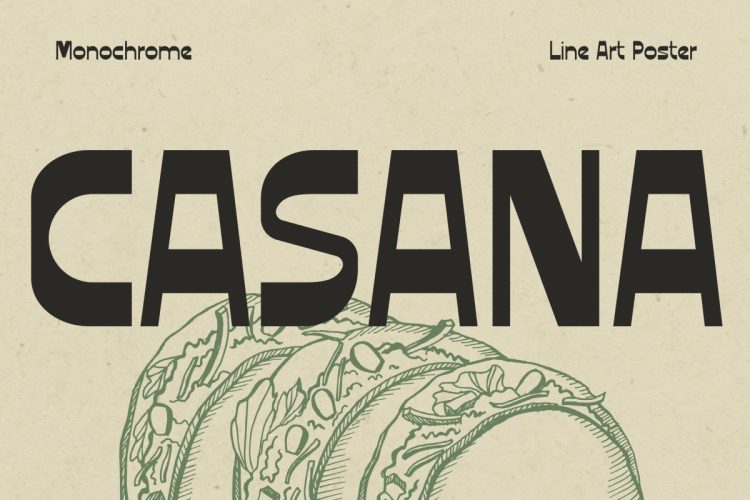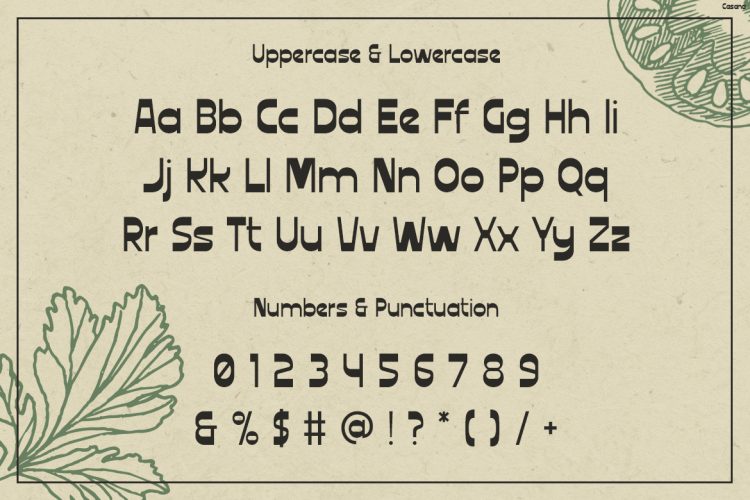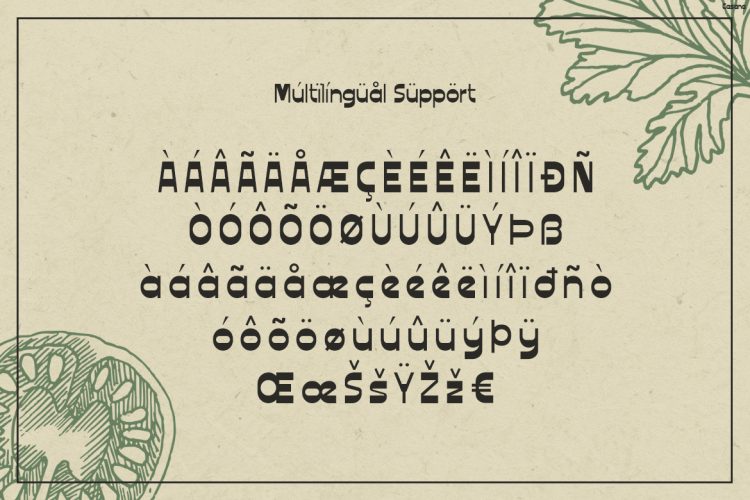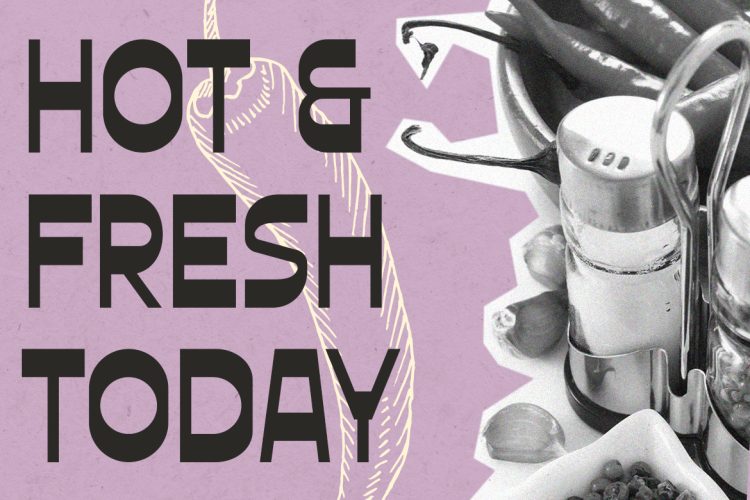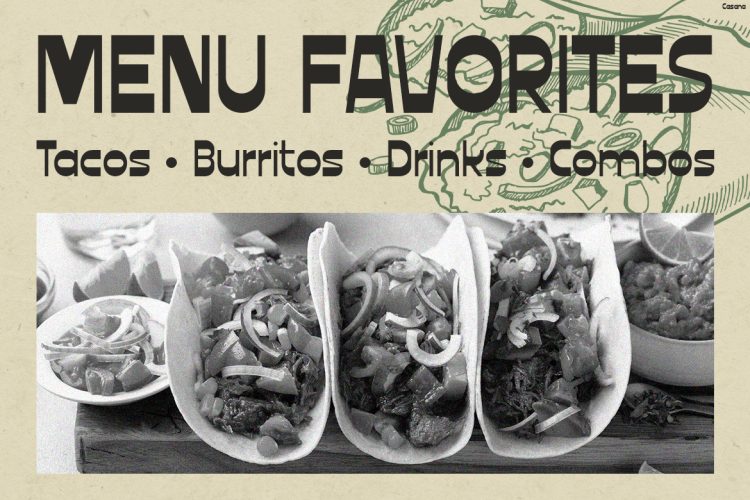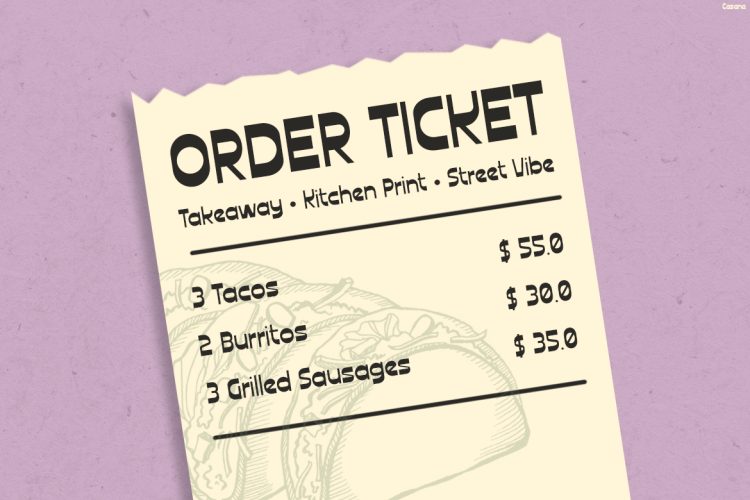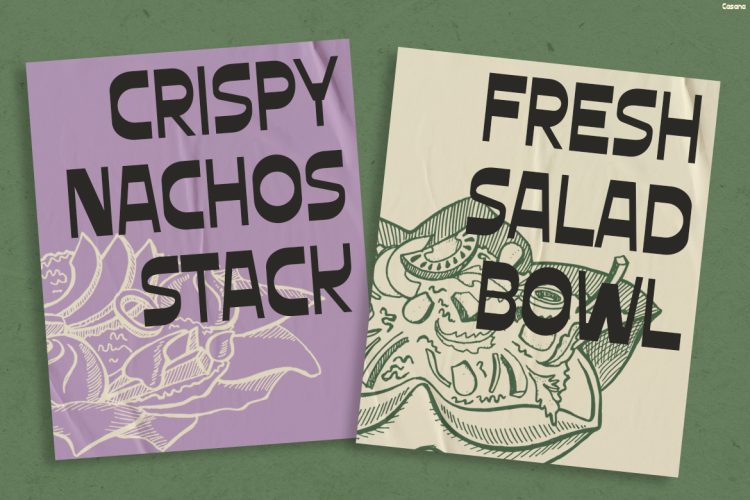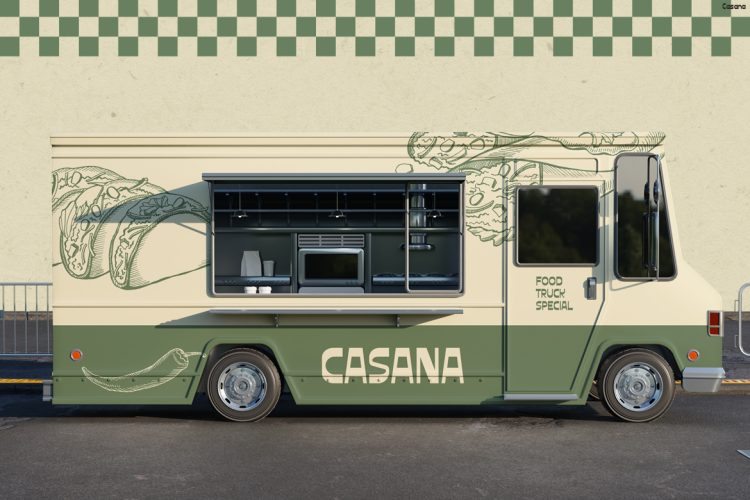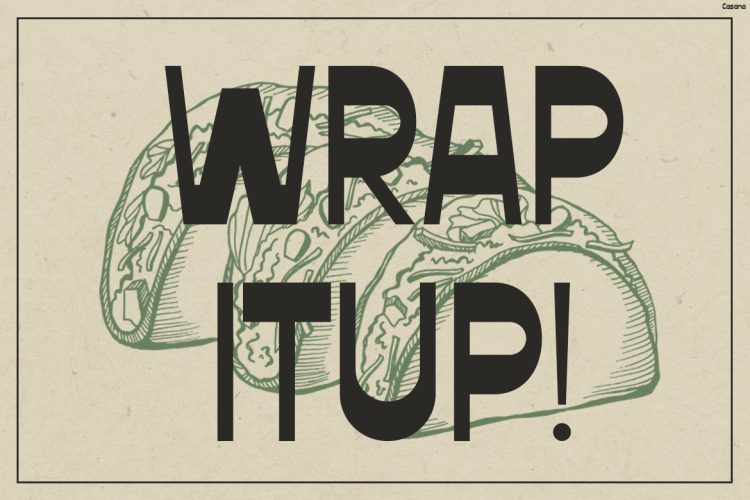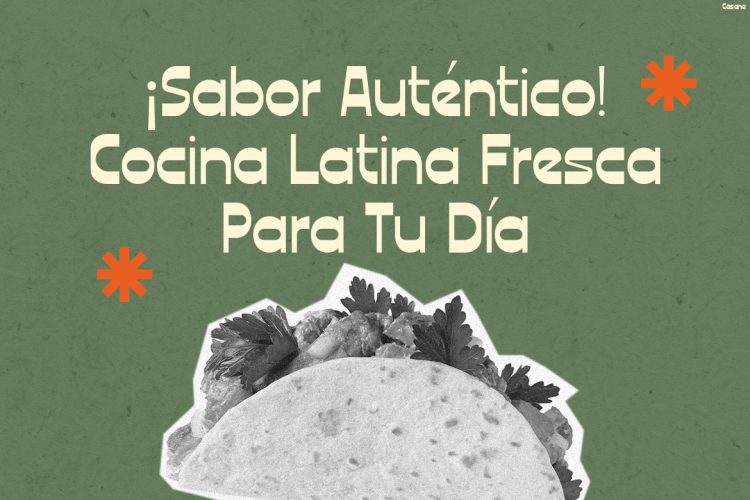
Retro Font Casana โ Bold Vintage Energy for Modern Food Branding
Retro Font Casana delivers a bold vintage aesthetic with chunky letterforms, playful curves, and a handcrafted retro vibe that instantly captures attention. Moreover, the strong visual character makes every design feel energetic, authentic, and stylish at the same time. Inspired by classic diner signage, nostalgic packaging, and trendy food truck graphics, this font creates a warm retro atmosphere while still looking modern and highly readable. In addition, the balanced letter structure helps headlines stand out clearly across both print and digital media. As a result, your branding looks more professional and visually striking in every layout. Better yet, this typeface includes Multilingual Support for 67 languages, so your designs can easily reach wider audiences worldwide.
Perfect for Creative Businesses and Trend-Driven Designers
Perfectly suited for food branding, restaurant menus, cafรฉ packaging, tacos shops, beverage labels, posters, merchandise, social media promotions, and retro-style logos, this font adds personality to every project. Furthermore, its bold and playful appearance makes it ideal for designers, restaurant owners, branding agencies, content creators, and small businesses seeking a unique vintage identity. Whether creating packaging or designing eye-catching promotional graphics, your work will instantly feel more expressive and memorable. Additionally, the clean yet artistic structure keeps every word readable without losing its retro charm. Consequently, both digital and print designs can look consistent, attractive, and highly impactful.
Suitable For:
- Food Truck Branding
- Mexican Restaurant Designs
- Retro Packaging
- Vintage Posters
- Cafรฉ Menus
- Streetwear Graphics
- Social Media Promotions
- Creative Logo Projects
Bring Powerful Retro Personality to Your Designs
Combining nostalgic charm with modern versatility, Retro Font Casana helps creative projects feel both timeless and fresh. Meanwhile, the strong headline presence makes promotional content appear more dynamic and engaging. Because of its versatile style, this font works beautifully across many creative industries and branding needs. Ultimately, if you want branding that looks bold, trendy, and unforgettable, this font is the perfect choice to elevate your next design project.